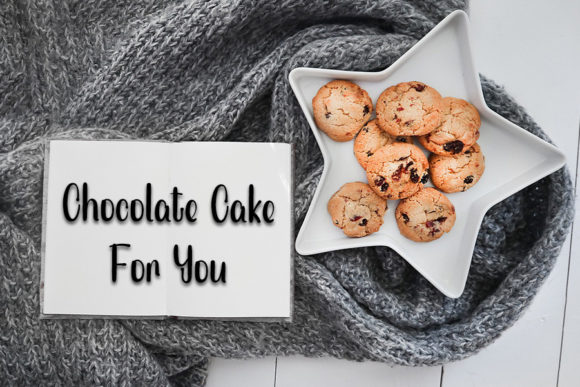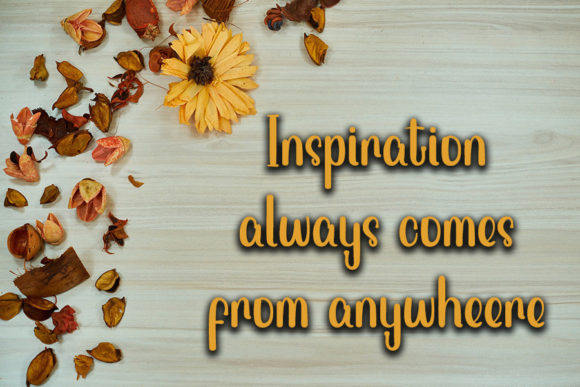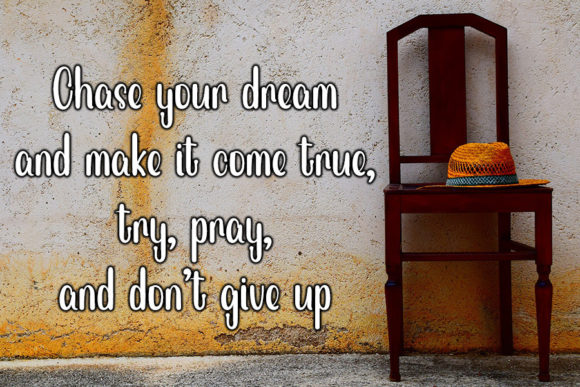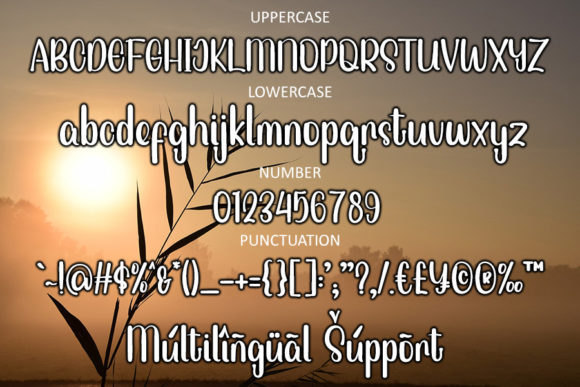
About Chocolate Sprinkle Font
Chocolate Sprinkle is a stylish handwritten font with a contemporary atmosphere and impeccable form, inspired by a timeless classic calligraphy. Not too thin and not too thick, balanced and varied, this font was designed to enhance the beauty of your projects.